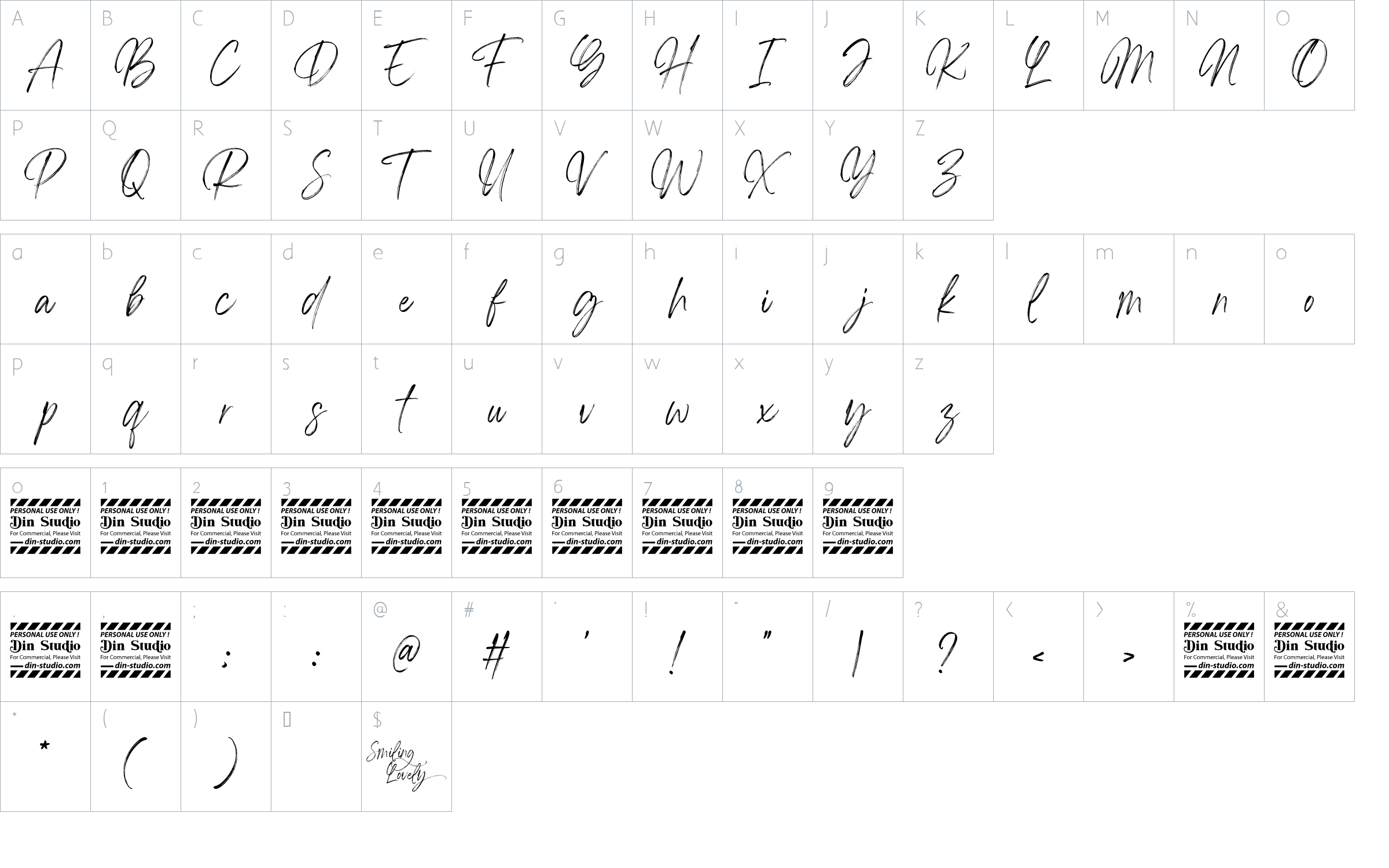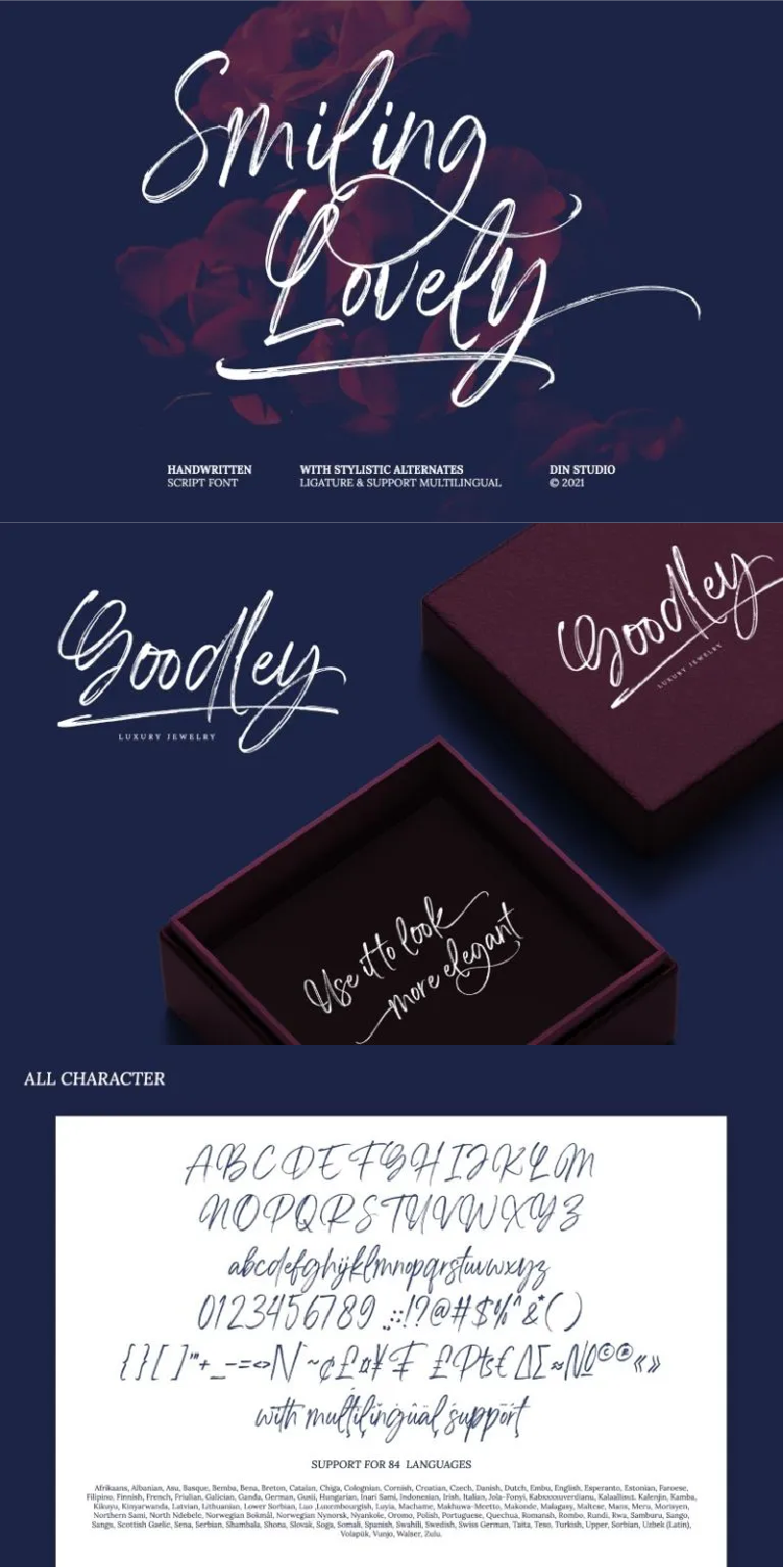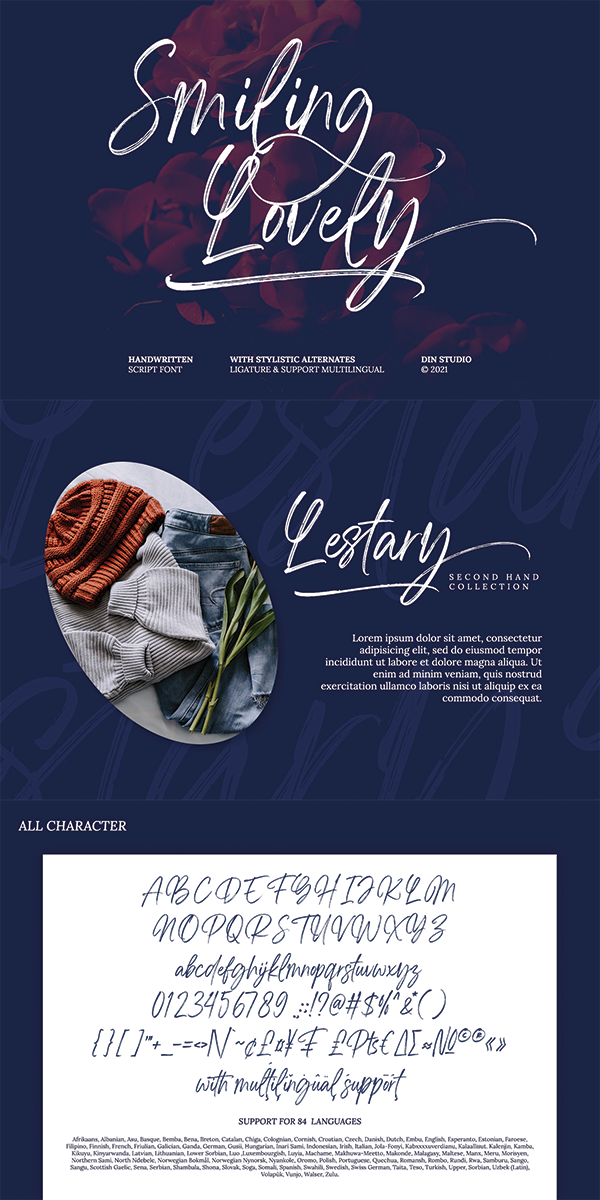
Smiling Lovely Font
About Smiling Lovely
Smiling Lovely-A Handwritten Font
Smiling Lovely is a handwritten font in a luxurious, classy, and timeless style. A handcrafted font that is combined with brush style inspired from recently trend style making this font the best choice to whatever your design is. Smiling Lovely is mainly intent for logo, headings, branding, magazine, cover album, book cover, movie, apparel design, quotes, invitations, flyer, poster, greeting cards, product packaging, printed quotes, etc.
Our font always includes Multilingual Support to make your branding reach a global audience.
- Stylistic Set
- Swashes
- Numerals and Punctuation